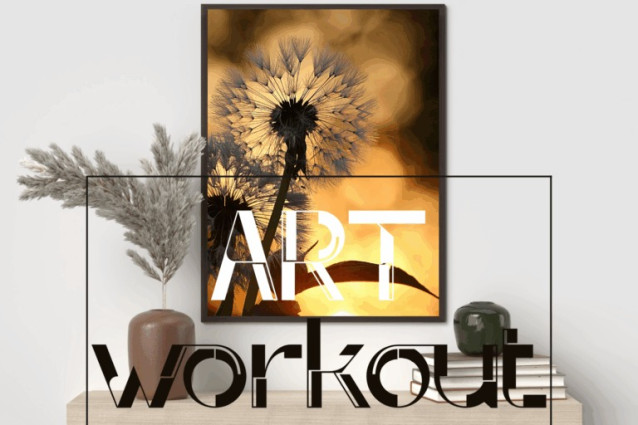
Concerto ArtDeco Font
Concerto ArtDeco Font is a modern experimental typeface that bridges the worlds of typography and music. Inspired by the structure and rhythm of a concerto, each character is crafted with geometric precision, graceful arcs, and modular construction—resulting in a truly artistic display font. The design plays with negative space and abstraction, creating letters that feel simultaneously mechanical and melodic. It’s ideal for music-themed projects, digital art posters, editorial headlines, and contemporary branding that aims to be both expressive and intelligent.
Uppercase & Lowercase Letters
~100 Special Ligatures for flowing rhythm
Accented Characters for multilingual support
Excellent for experimental design, album covers, and tech-editorial aesthetics
About 100 ligatures combined with Stylistic Alternates Font: